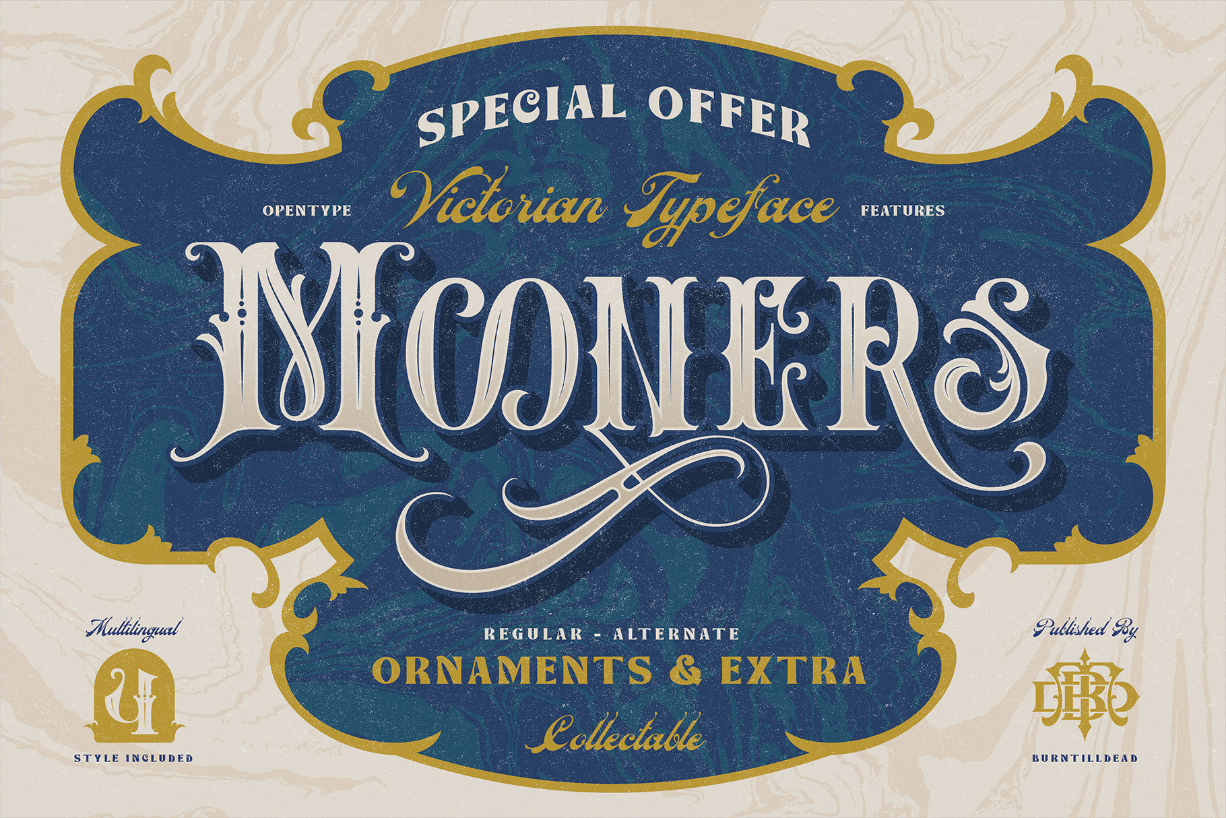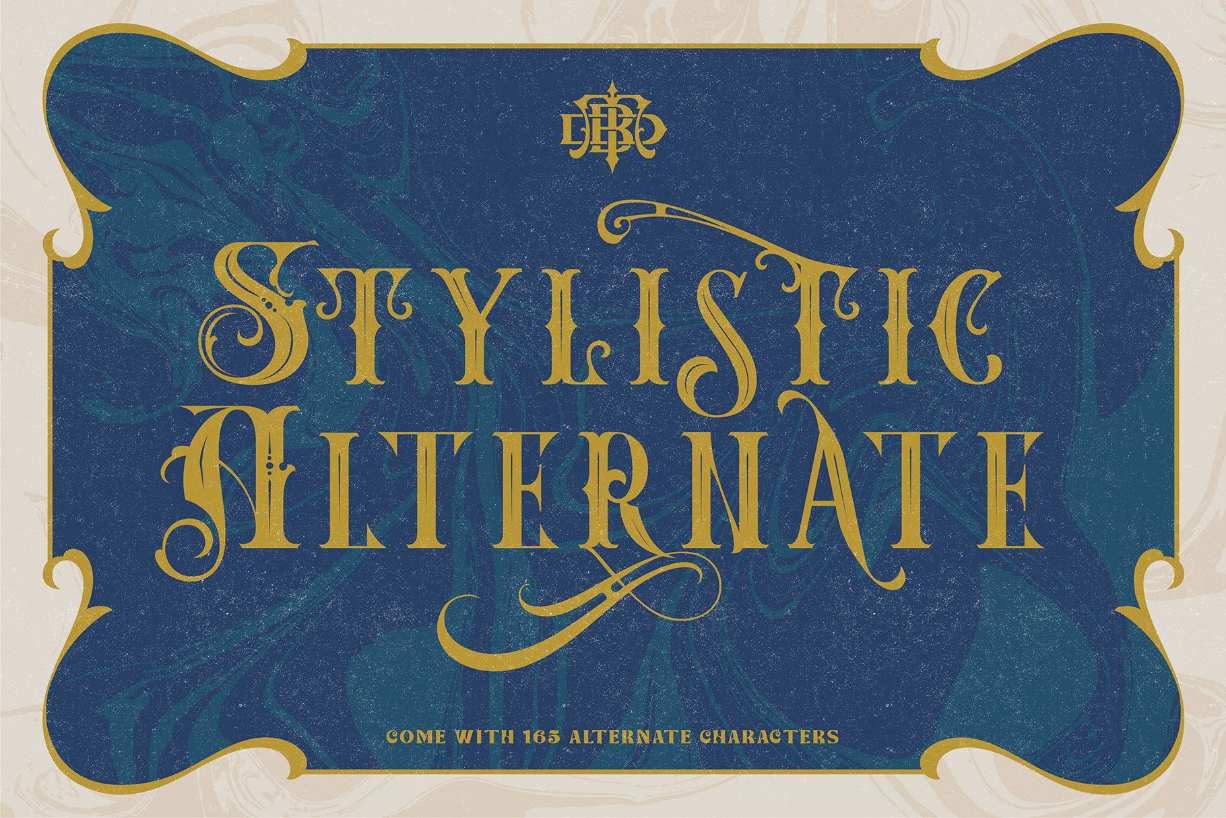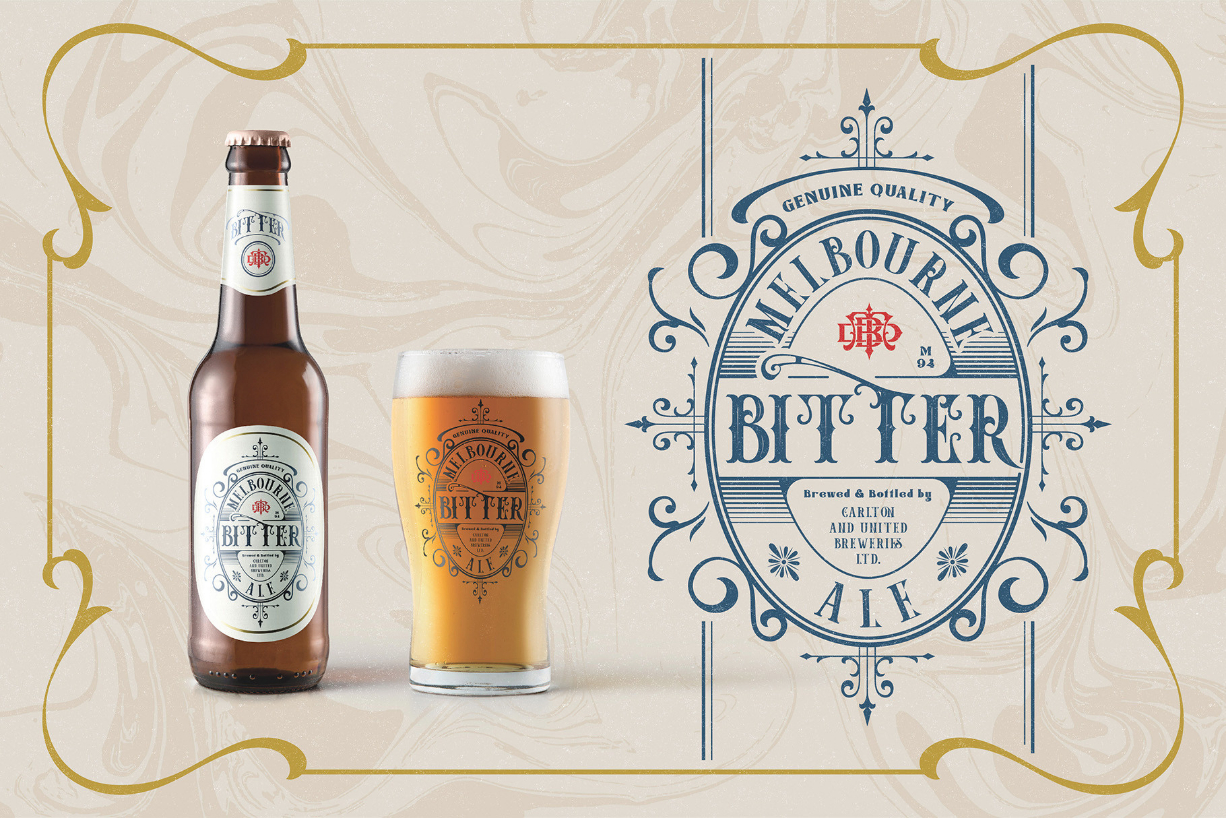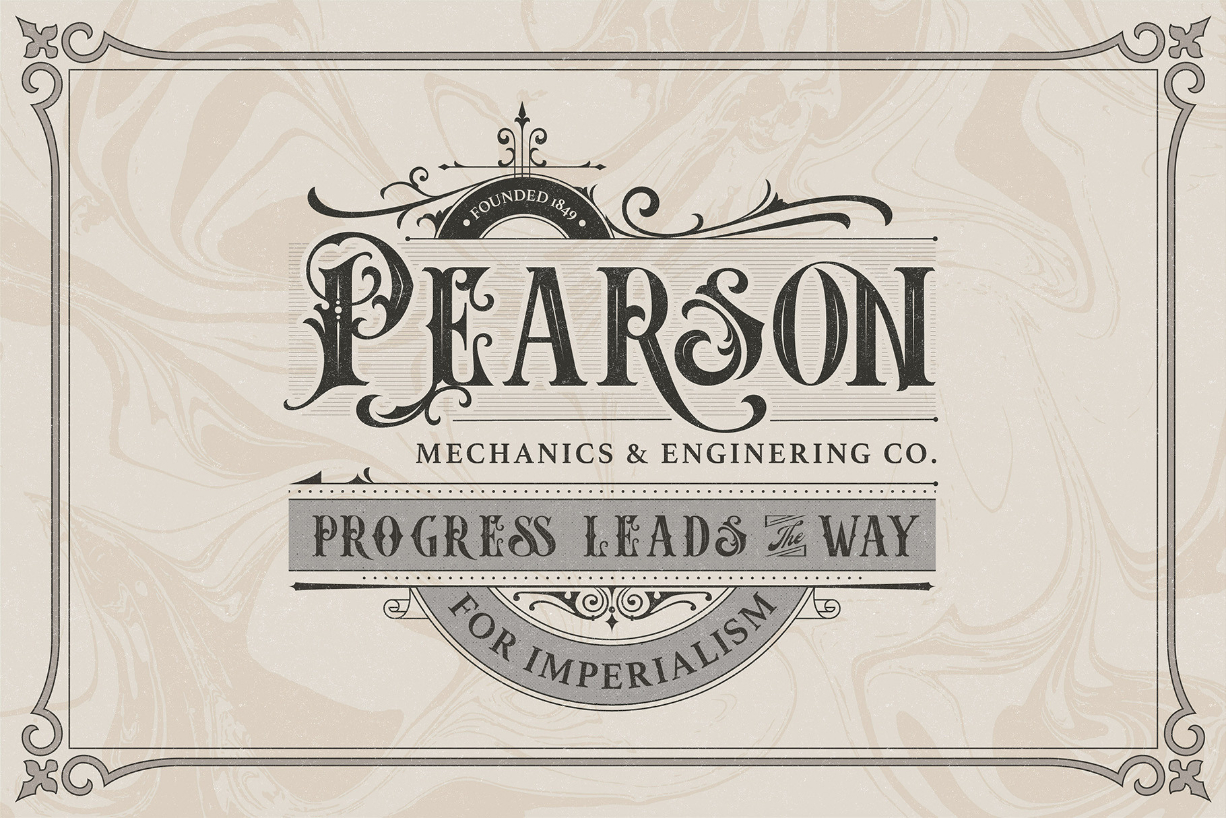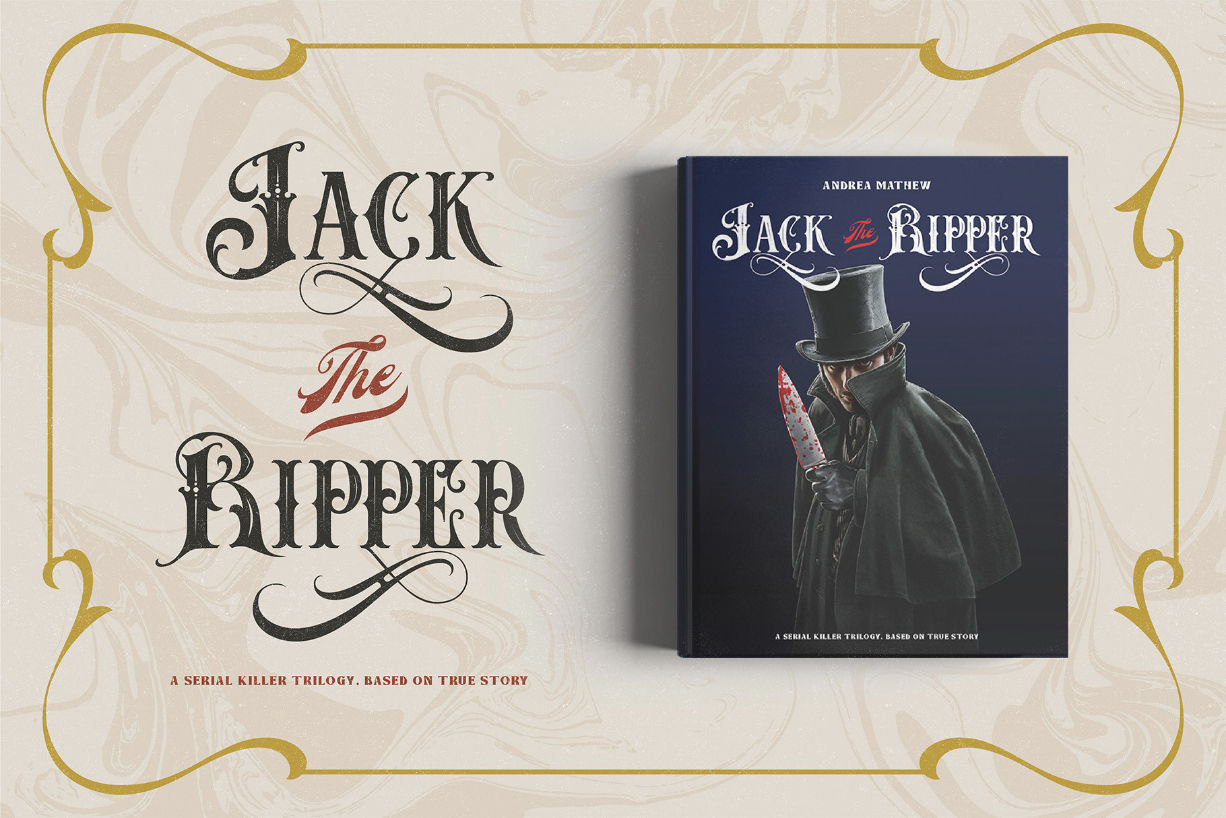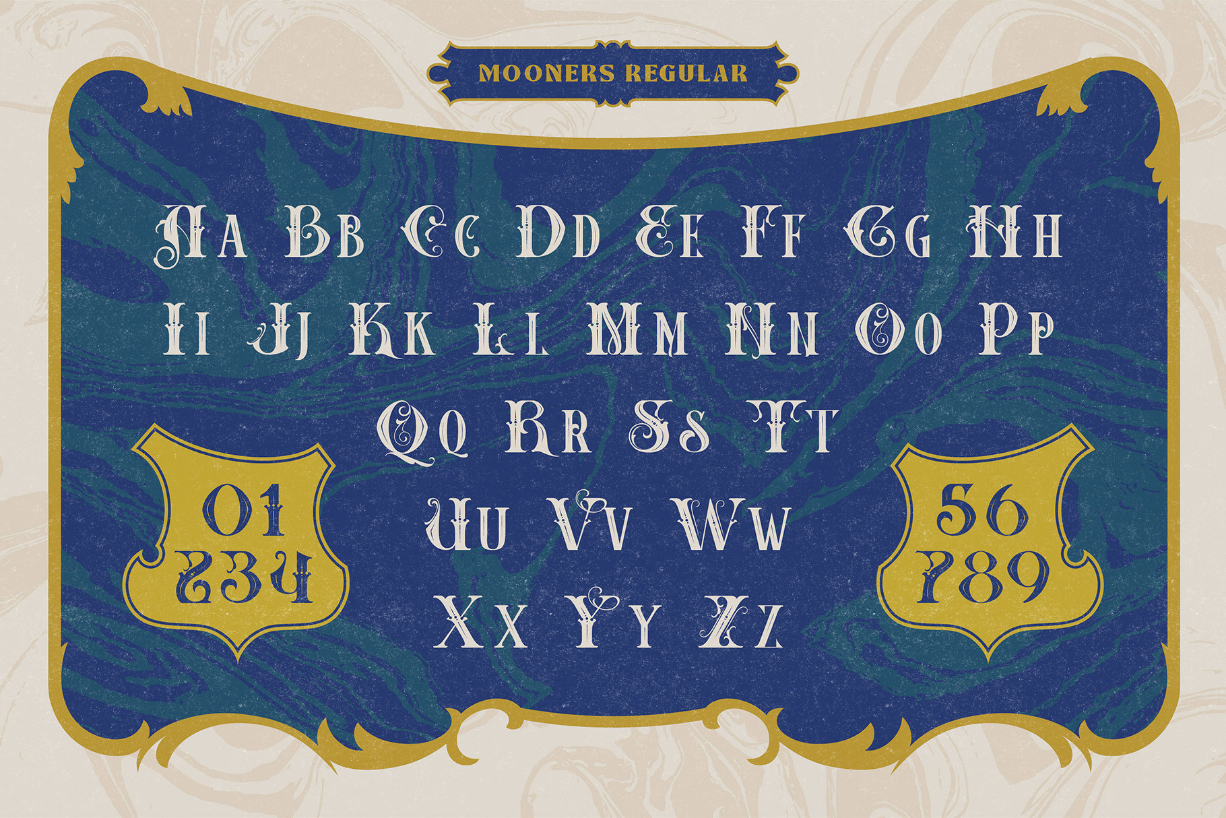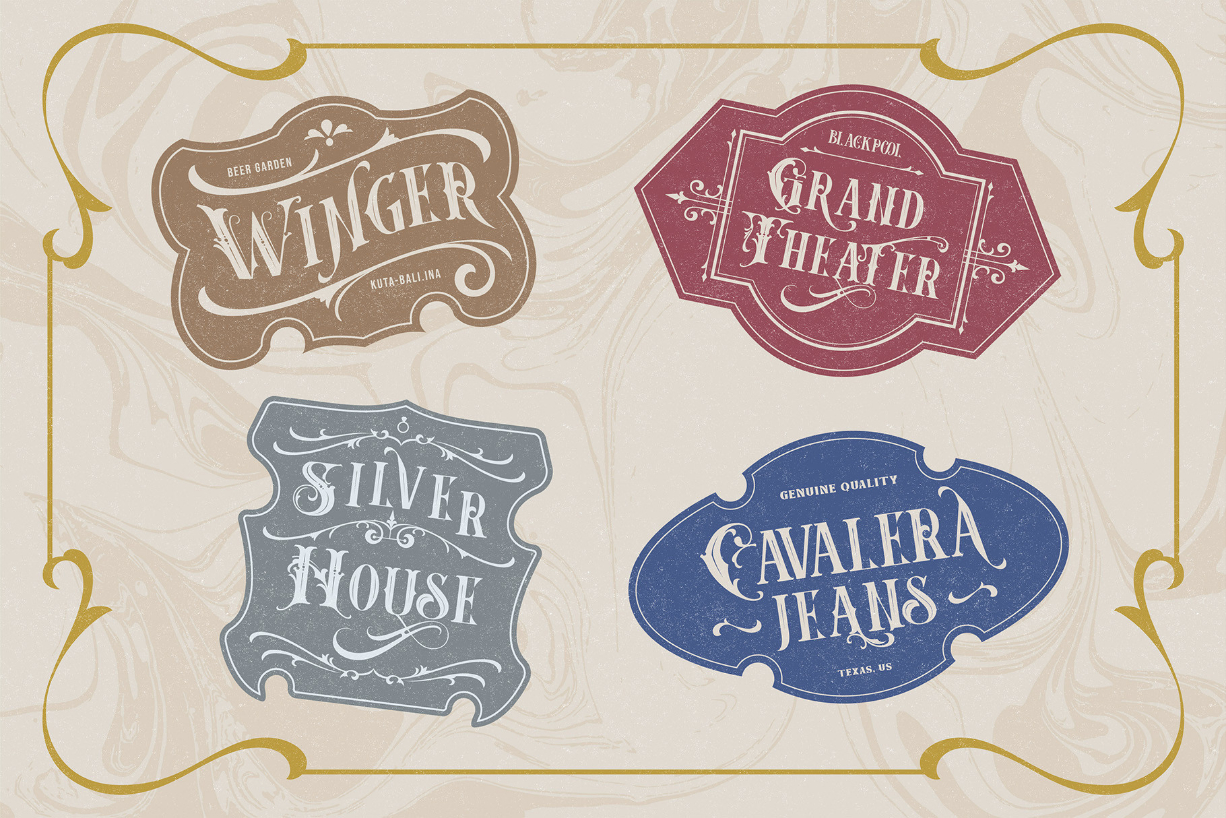
Mooners Font
About Mooners Font
Mooners is a highly detailed and interesting looking blackletter font. This font is PUA encoded which means you can access all of the glyphs and swashes with ease!